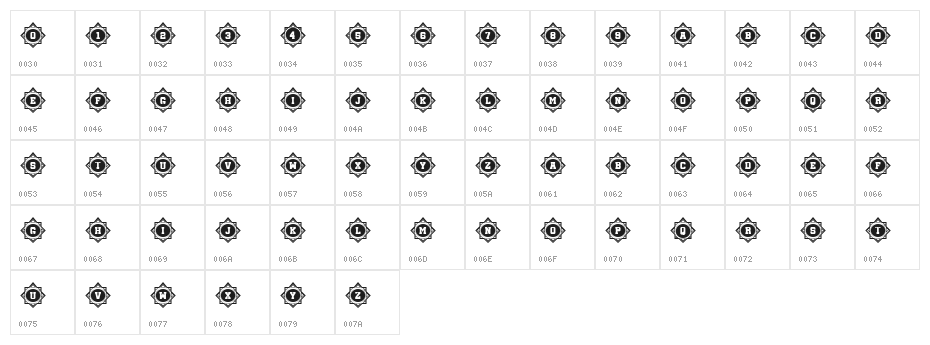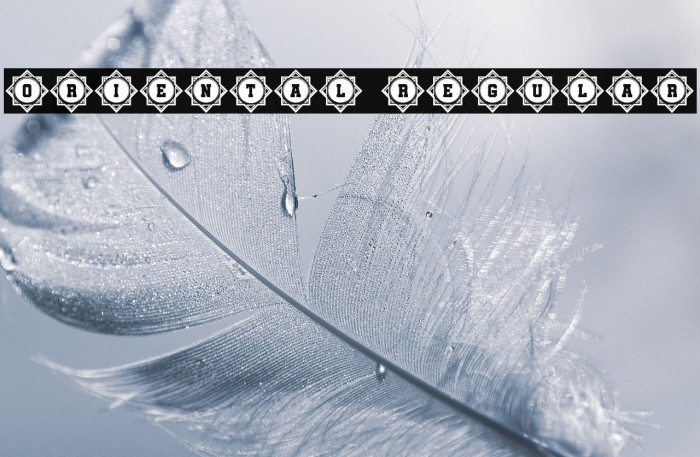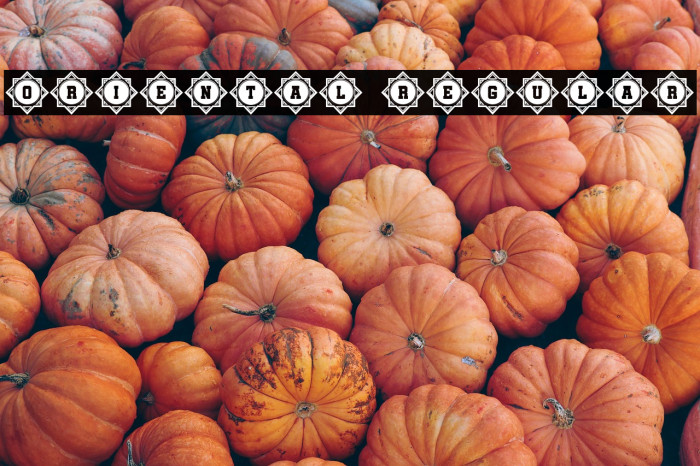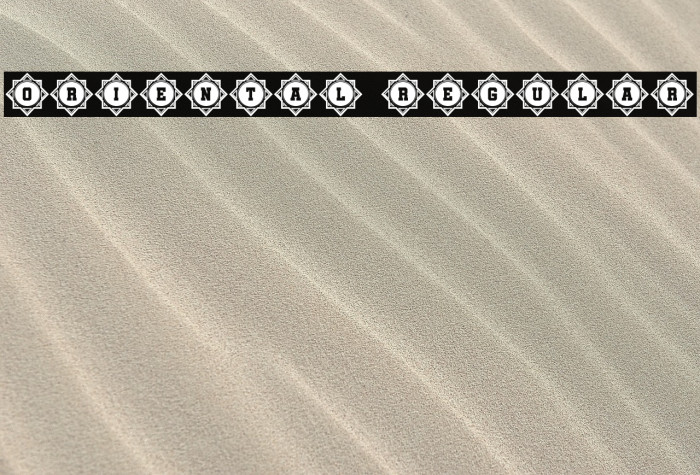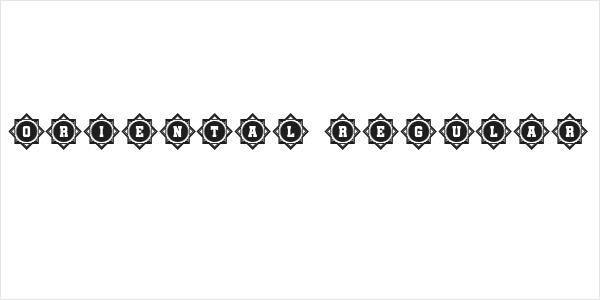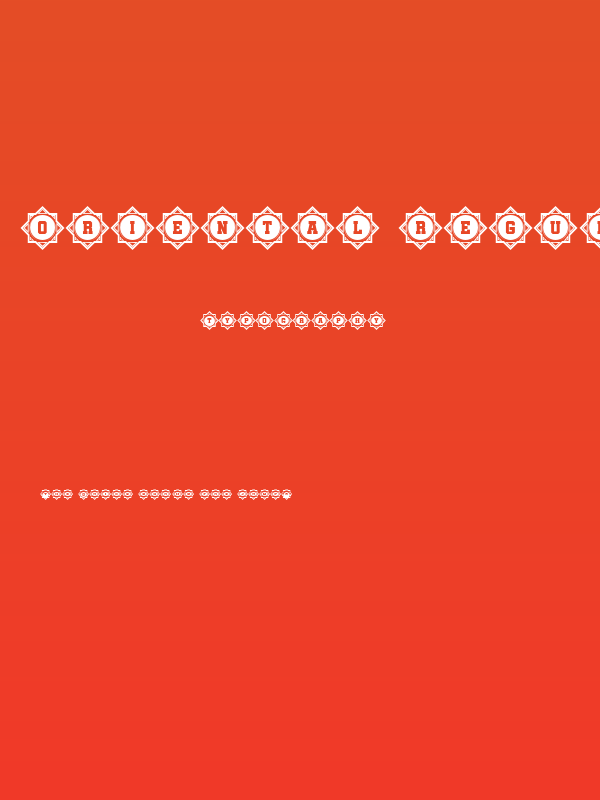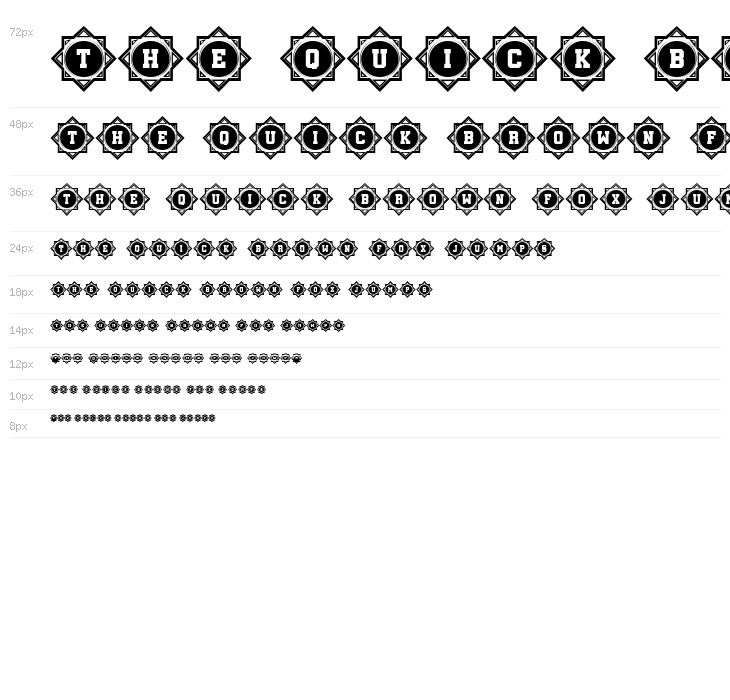
Oriental Regular Font
Oriental Regular Description
This font features a unique and decorative style, with each character enclosed within an ornate, star-like frame. The characters themselves are bold and capitalized, offering a strong visual impact. The design is reminiscent of traditional Eastern motifs, providing a sense of cultural richness and artistic flair. The geometric frames add a layer of complexity and elegance, making this font suitable for projects that require a touch of sophistication and exotic appeal. The consistent use of frames around each character ensures uniformity and balance, while the boldness of the letters ensures readability even within the intricate designs.
| Proposed Projects | Ideal for cultural event posters, themed invitations, artistic branding, and decorative signage. |